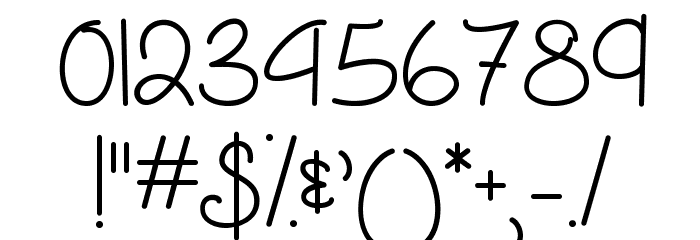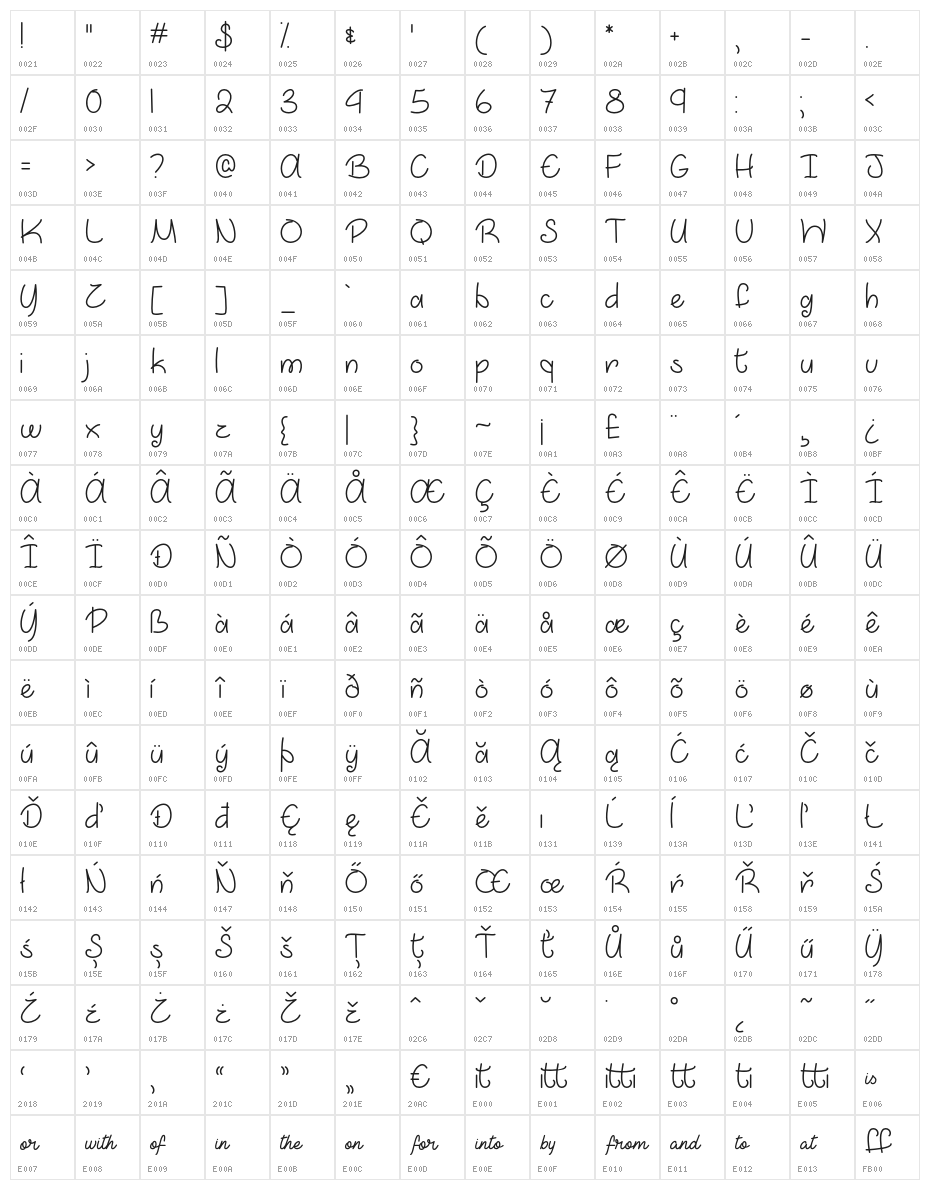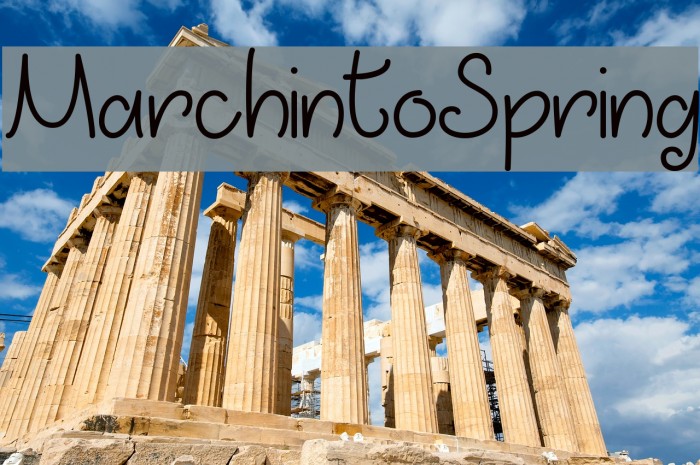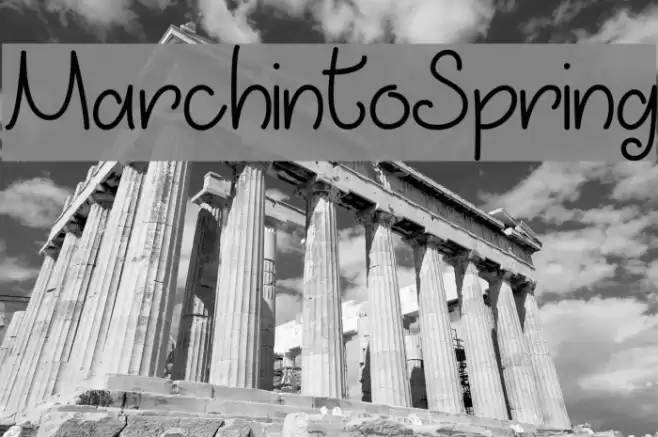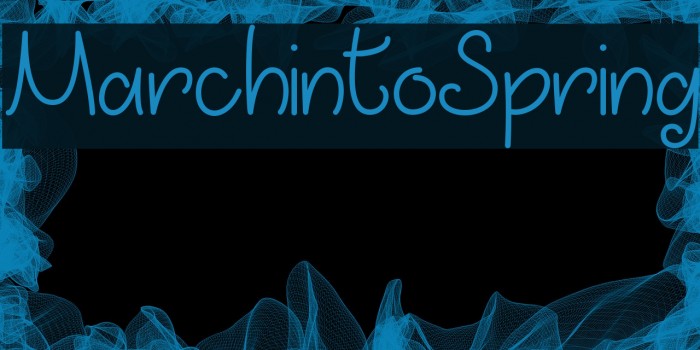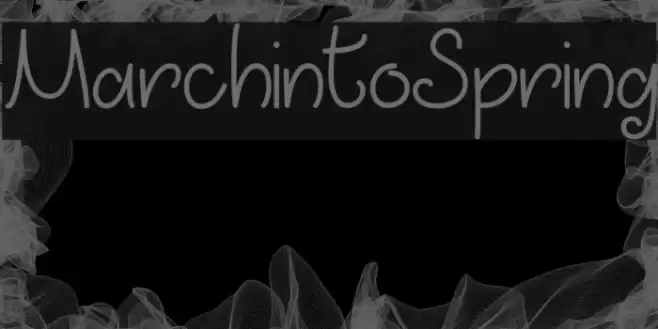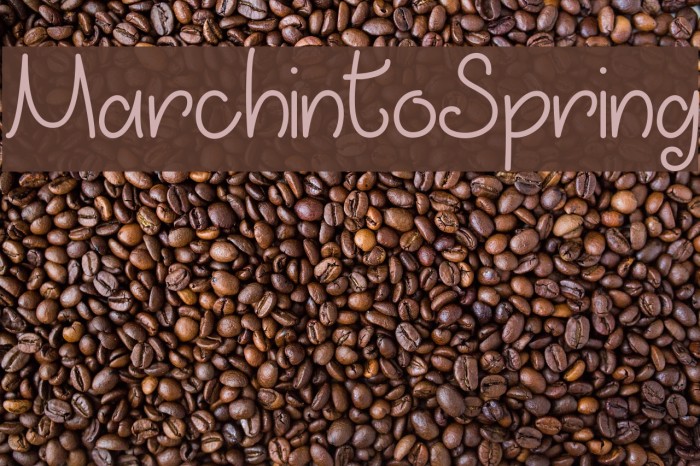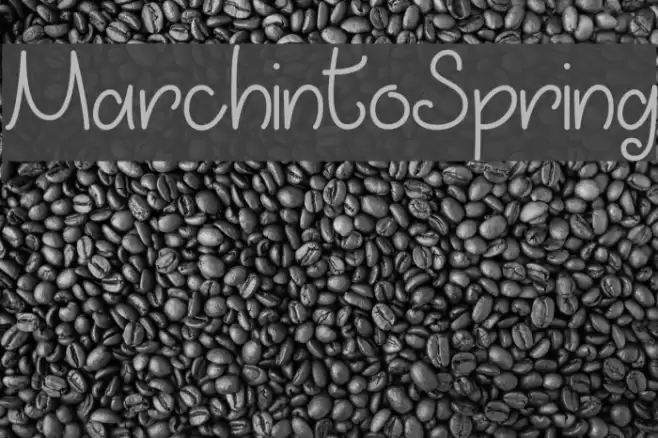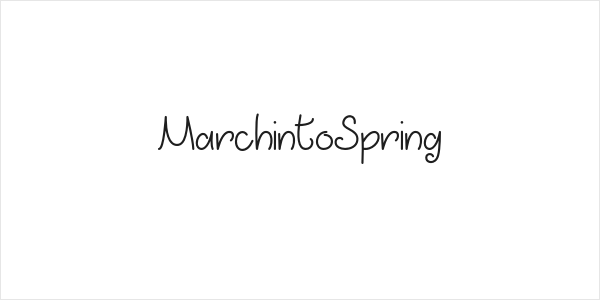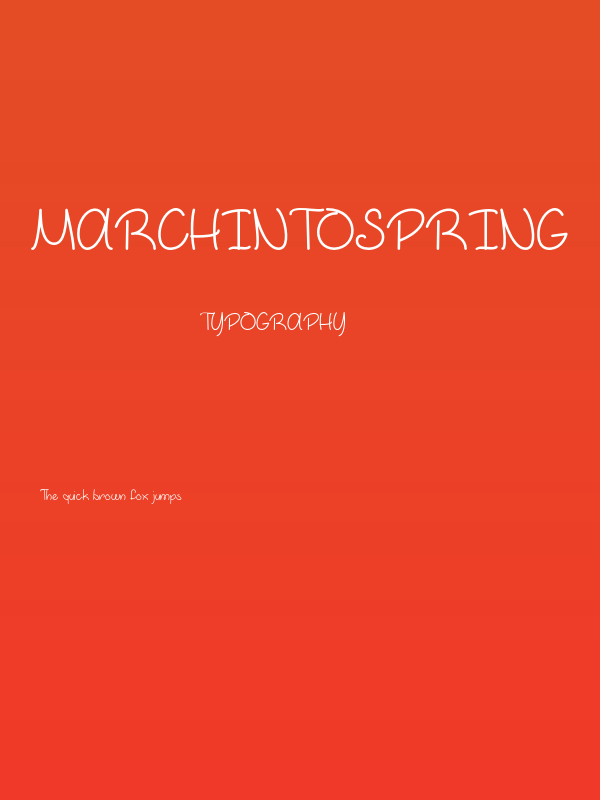
MarchintoSpring Font
MarchintoSpring Description
This playful and whimsical font features a handwritten style with smooth, flowing curves and rounded edges. The characters are slightly slanted, giving a casual and friendly appearance. The uppercase and lowercase letters maintain a consistent style, with a slight variation in size and shape that adds to the font's charm. The numerals are clear and easy to read, while the special characters are creatively designed to match the overall aesthetic. This font is perfect for projects that require a personal touch, such as invitations, greeting cards, and playful branding.
| Use Case | Headlines, Invitations, Greeting Cards |
| Proposed Projects | Ideal for invitations, greeting cards, playful branding, and personal projects. |